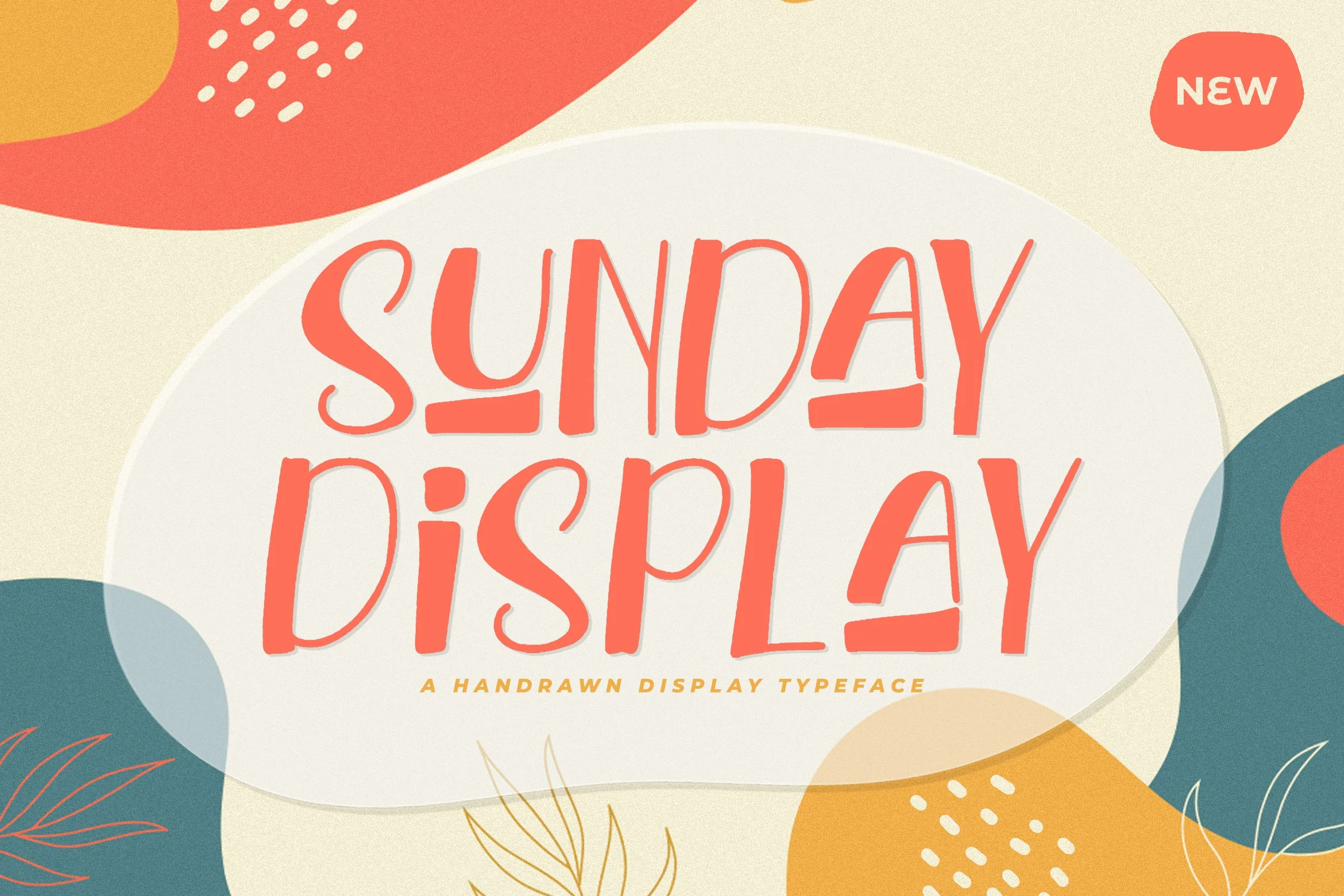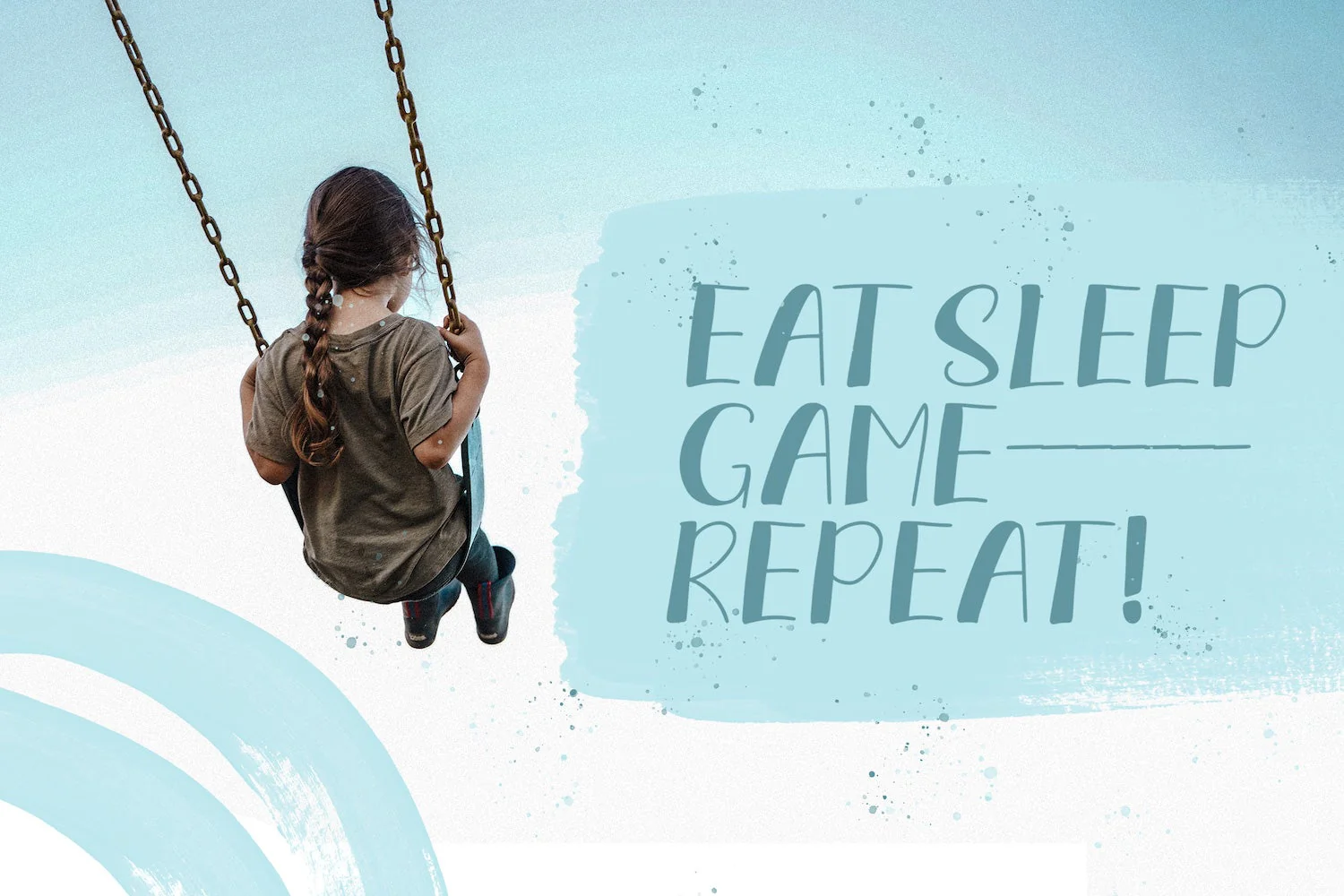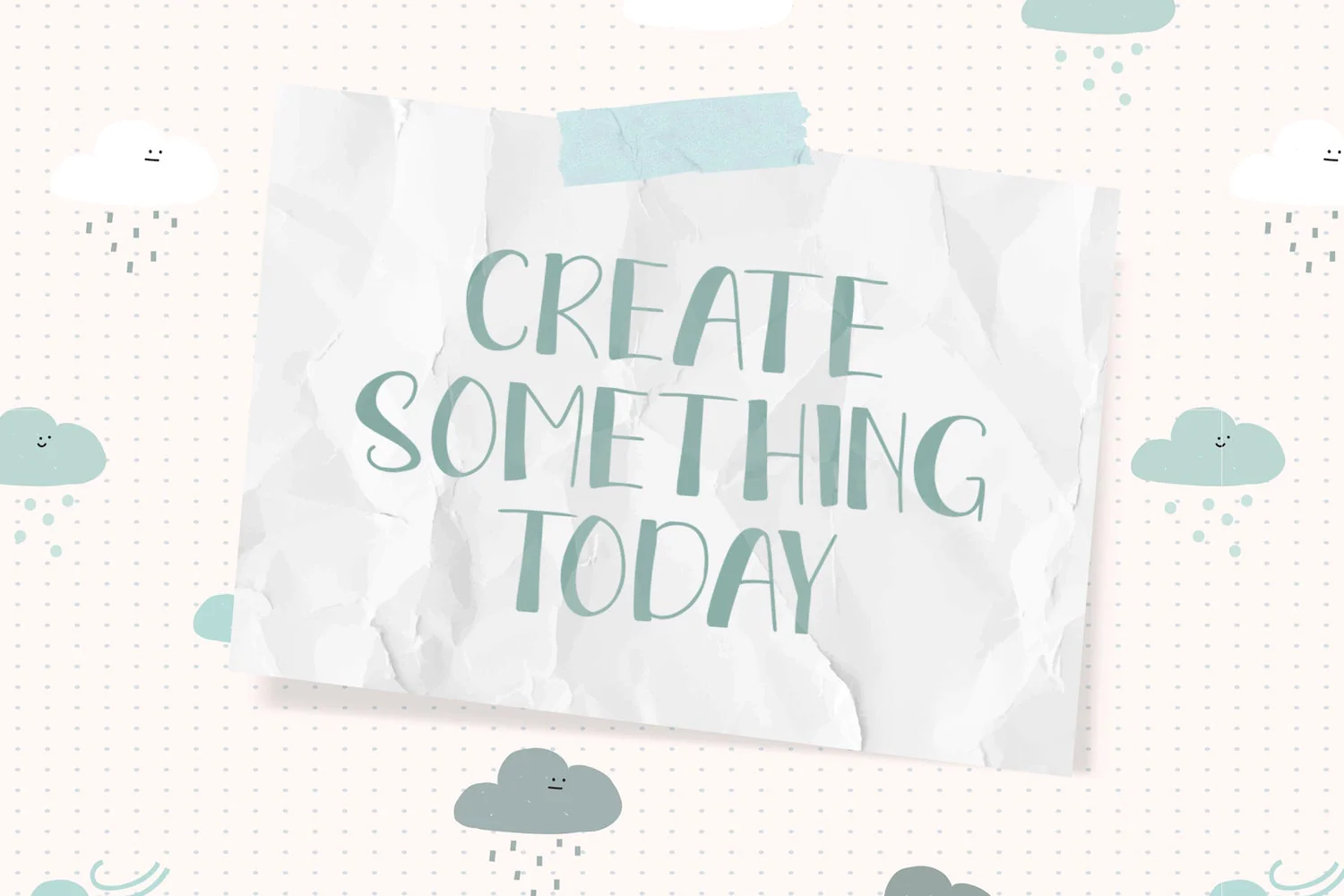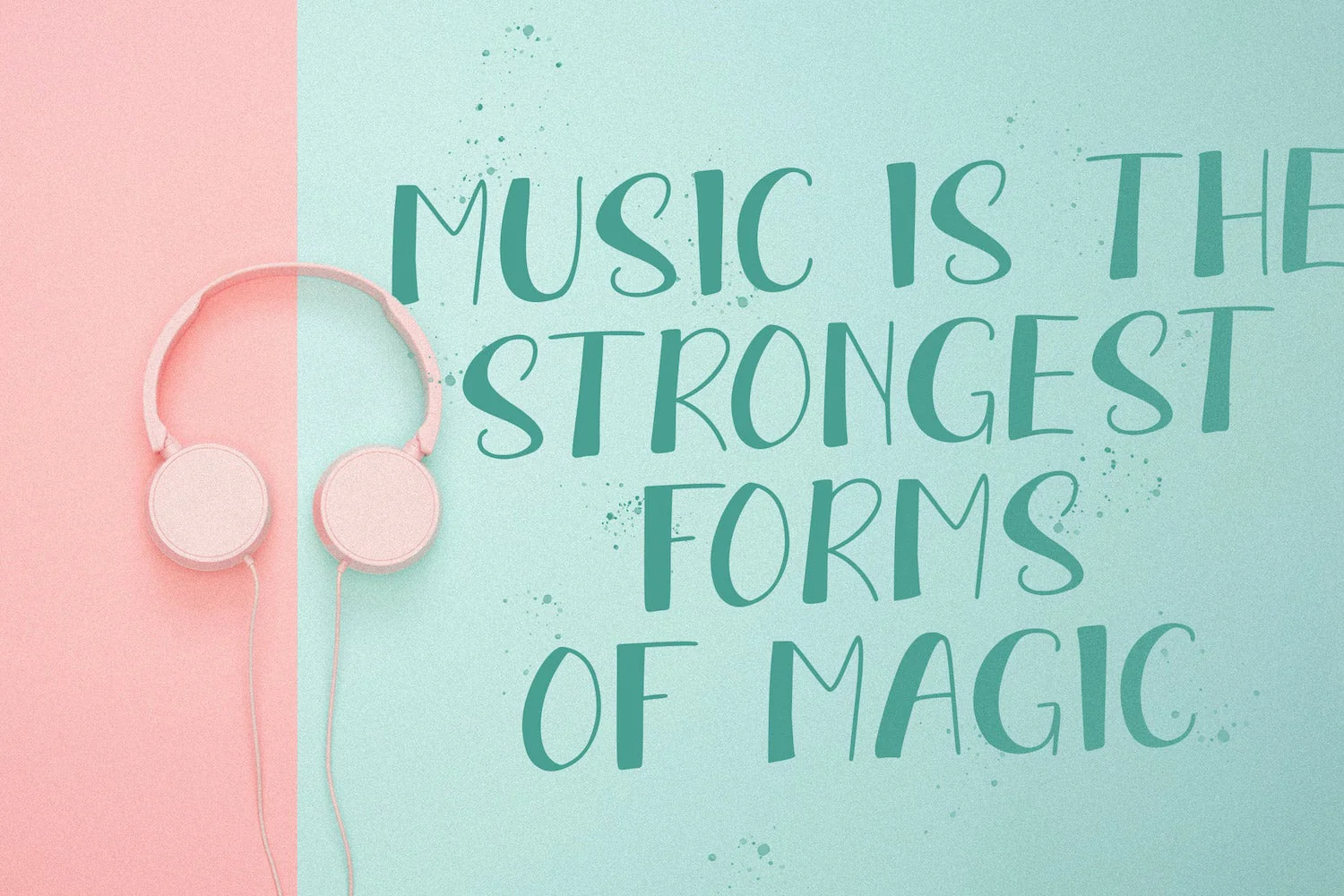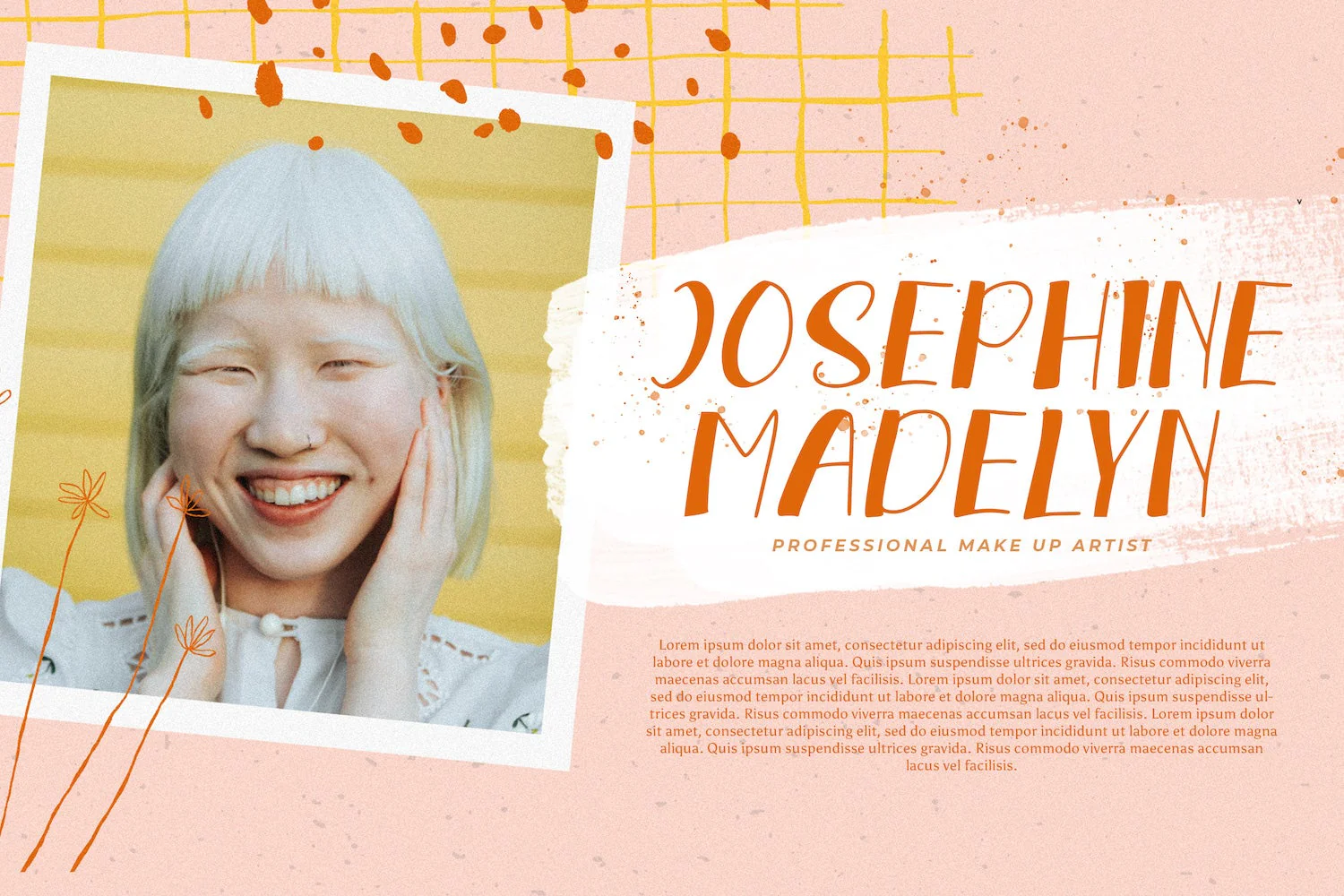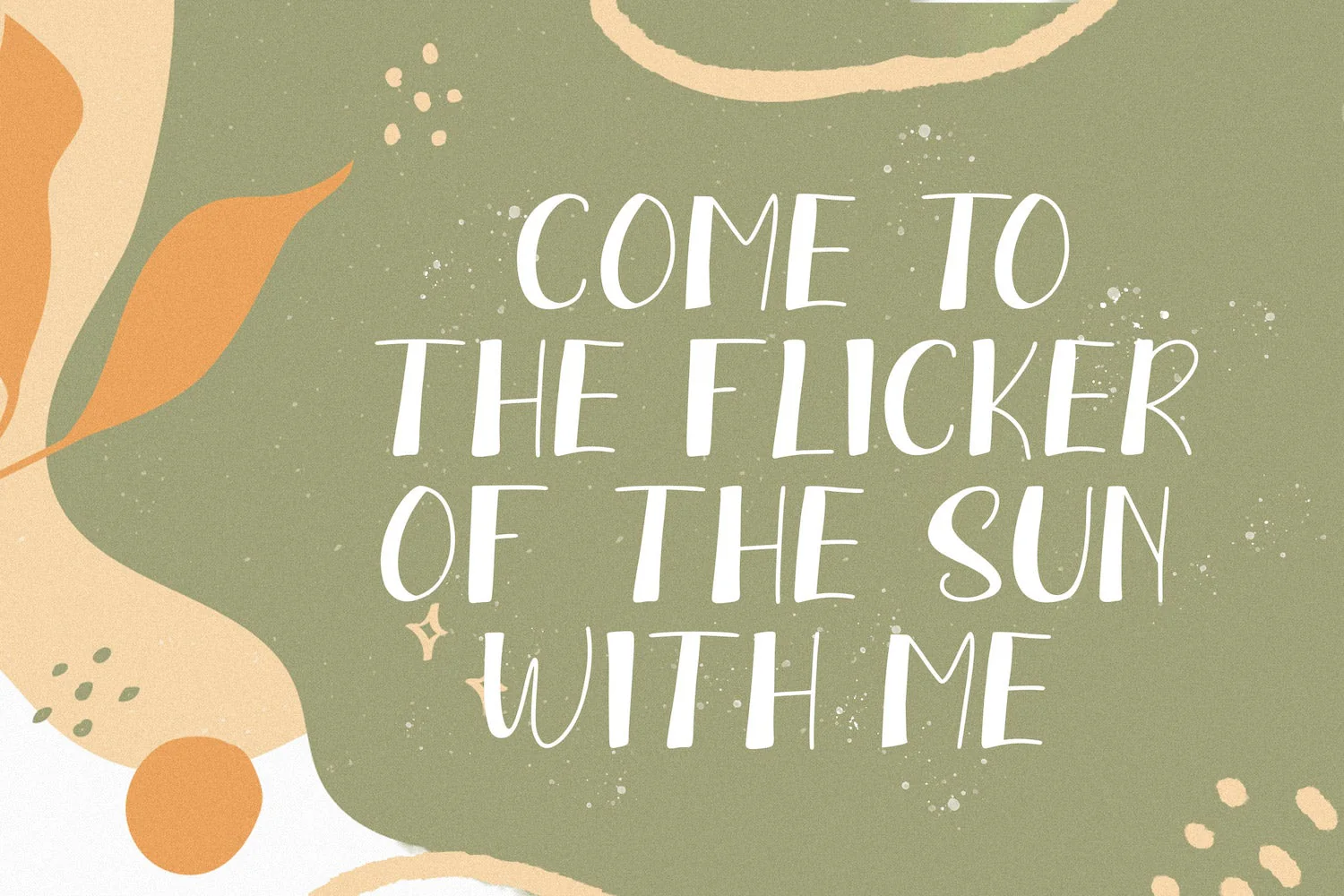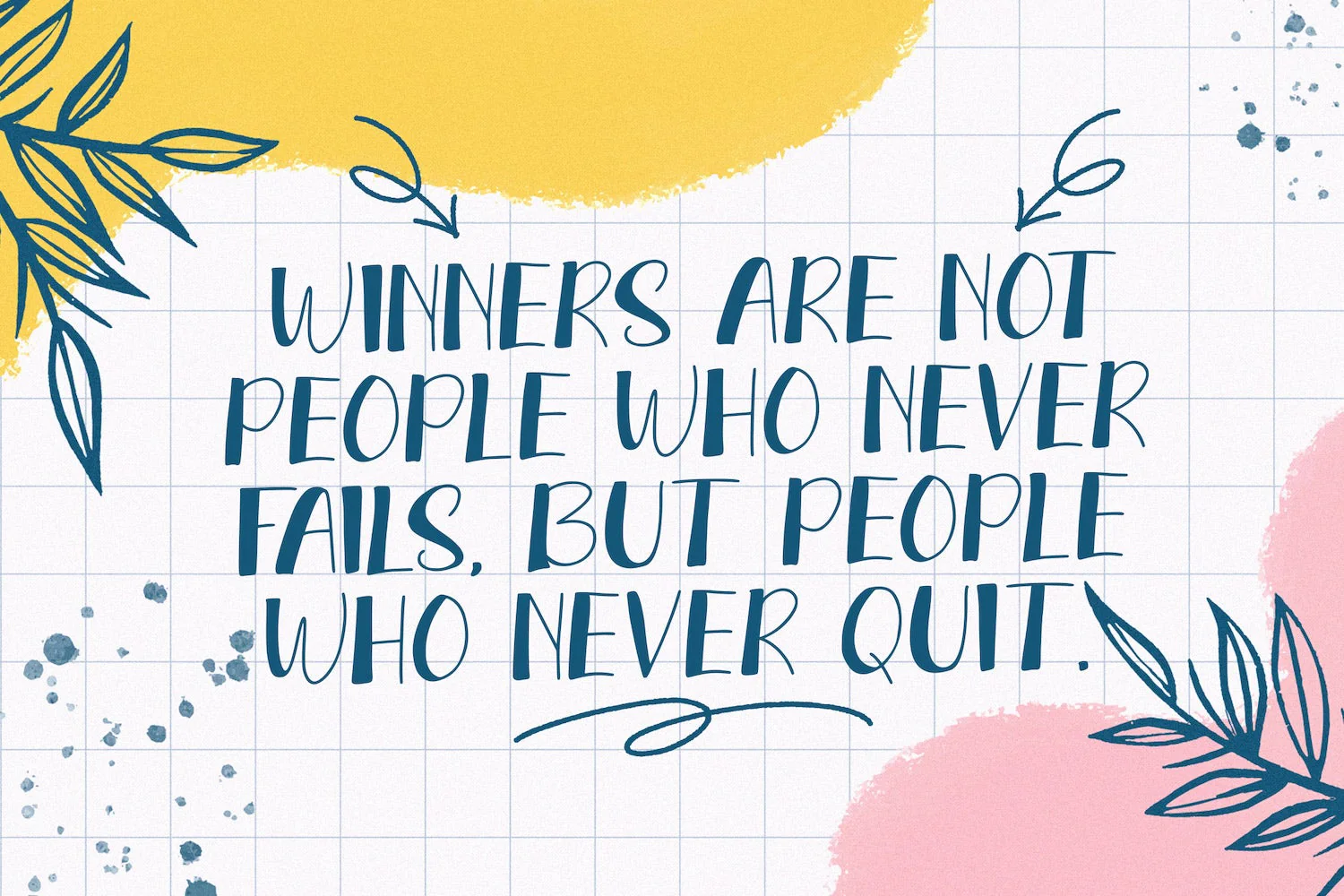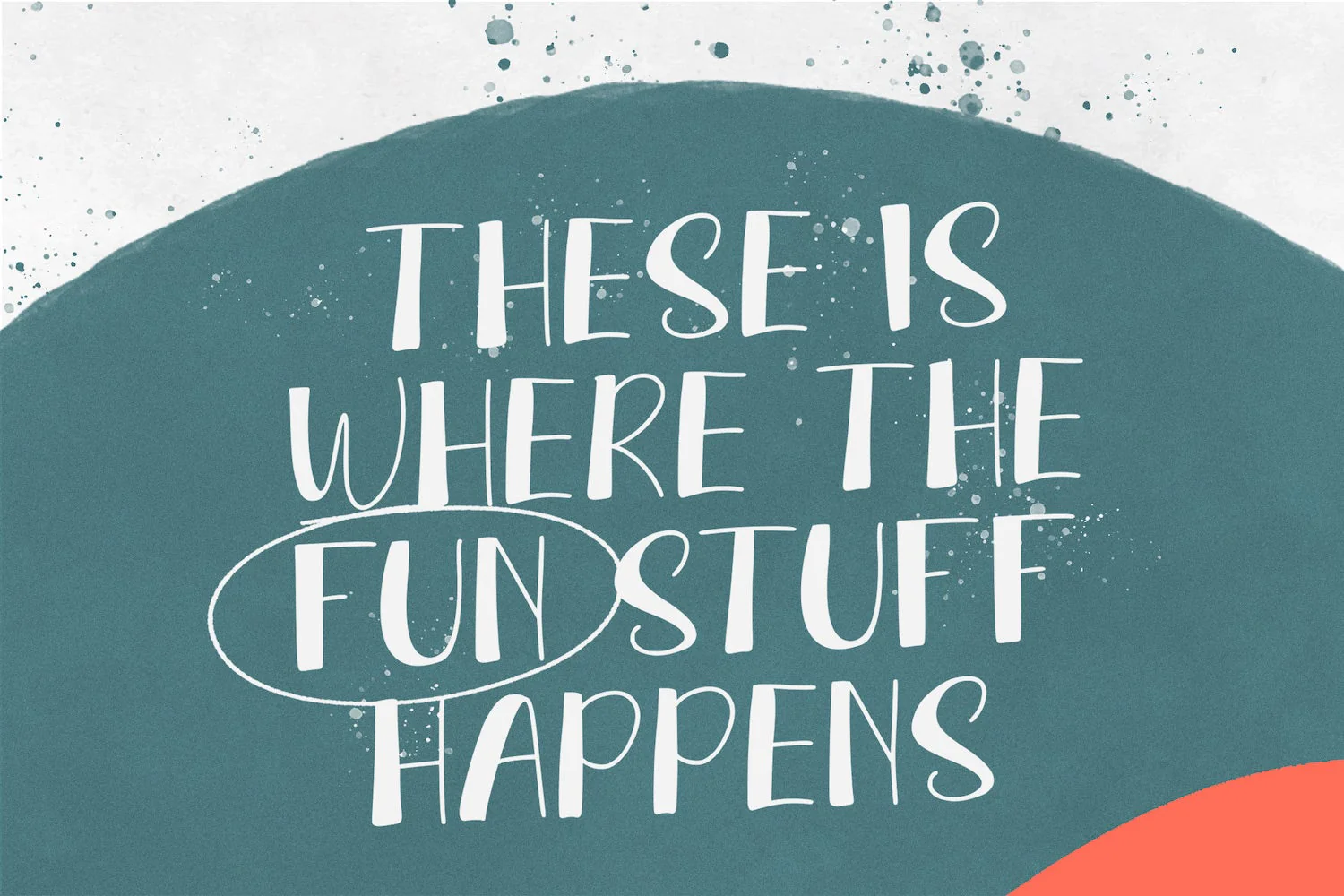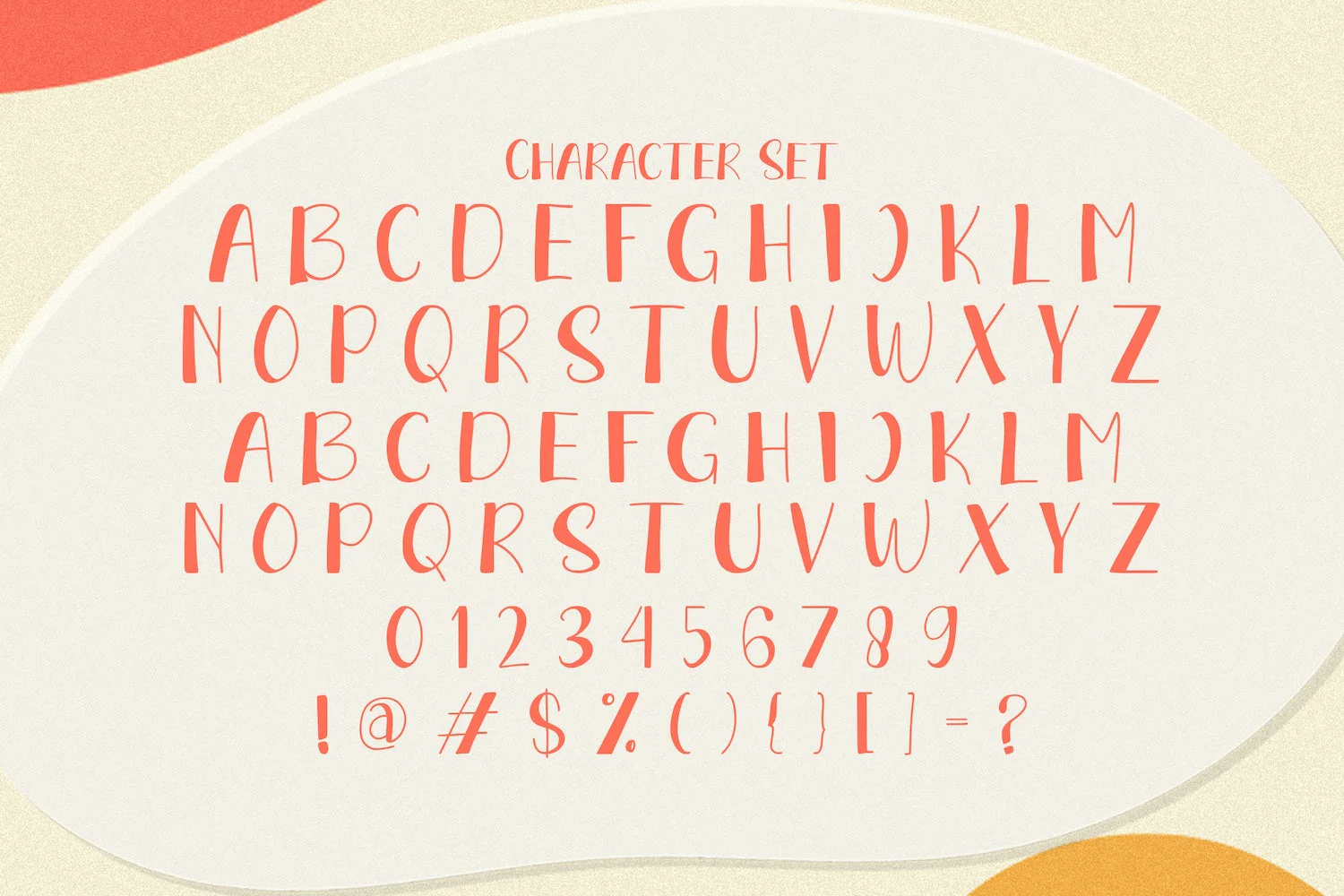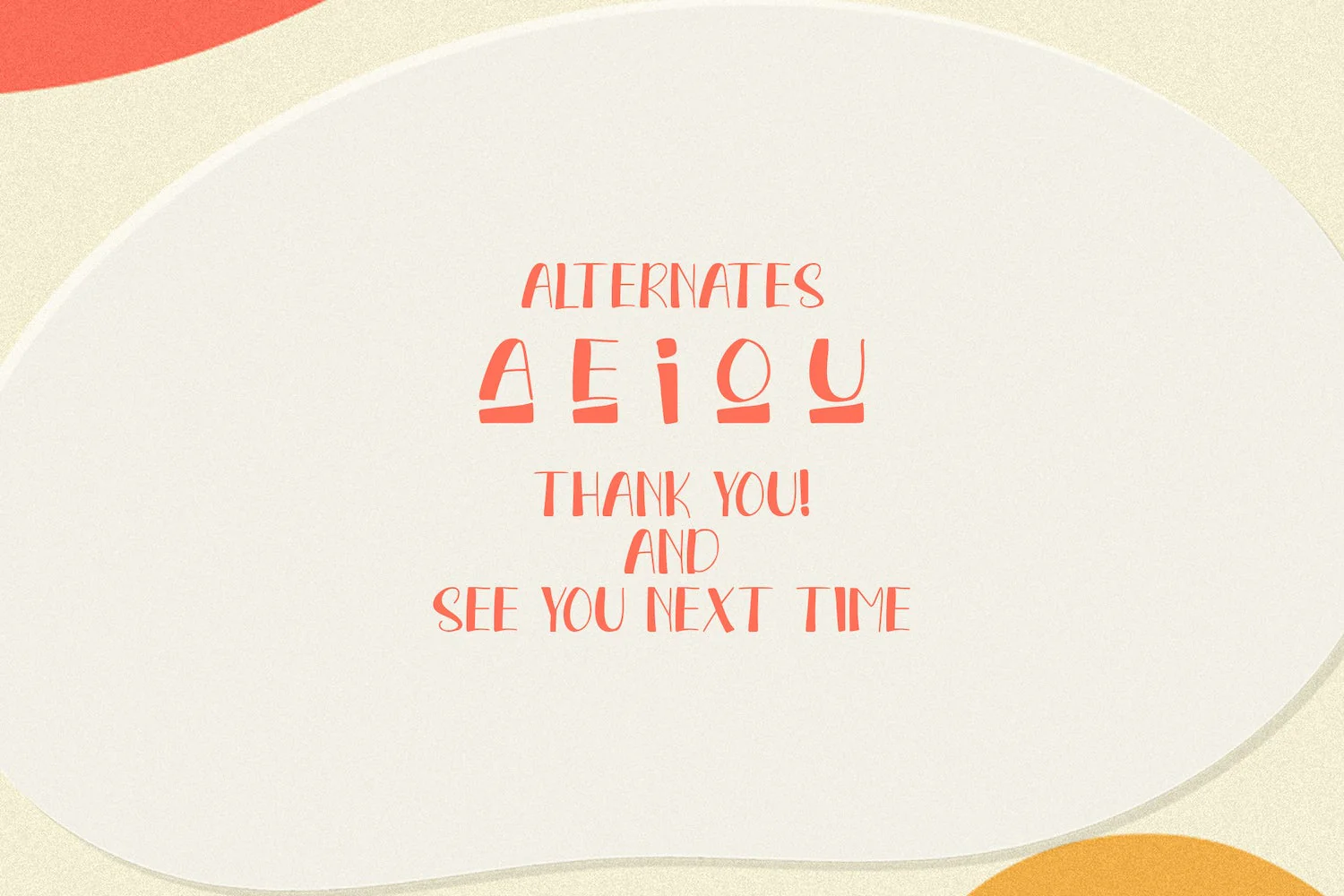
Sunday Display - Playful Font
Introducing Sunday Display - Playful Font
Sunday Display is a fun font. Playful and fresh, this font will be a hit for each of your children or school projects!
Introducing Sunday Display - Playful Font
Sunday Display is a fun font. Playful and fresh, this font will be a hit for each of your children or school projects!